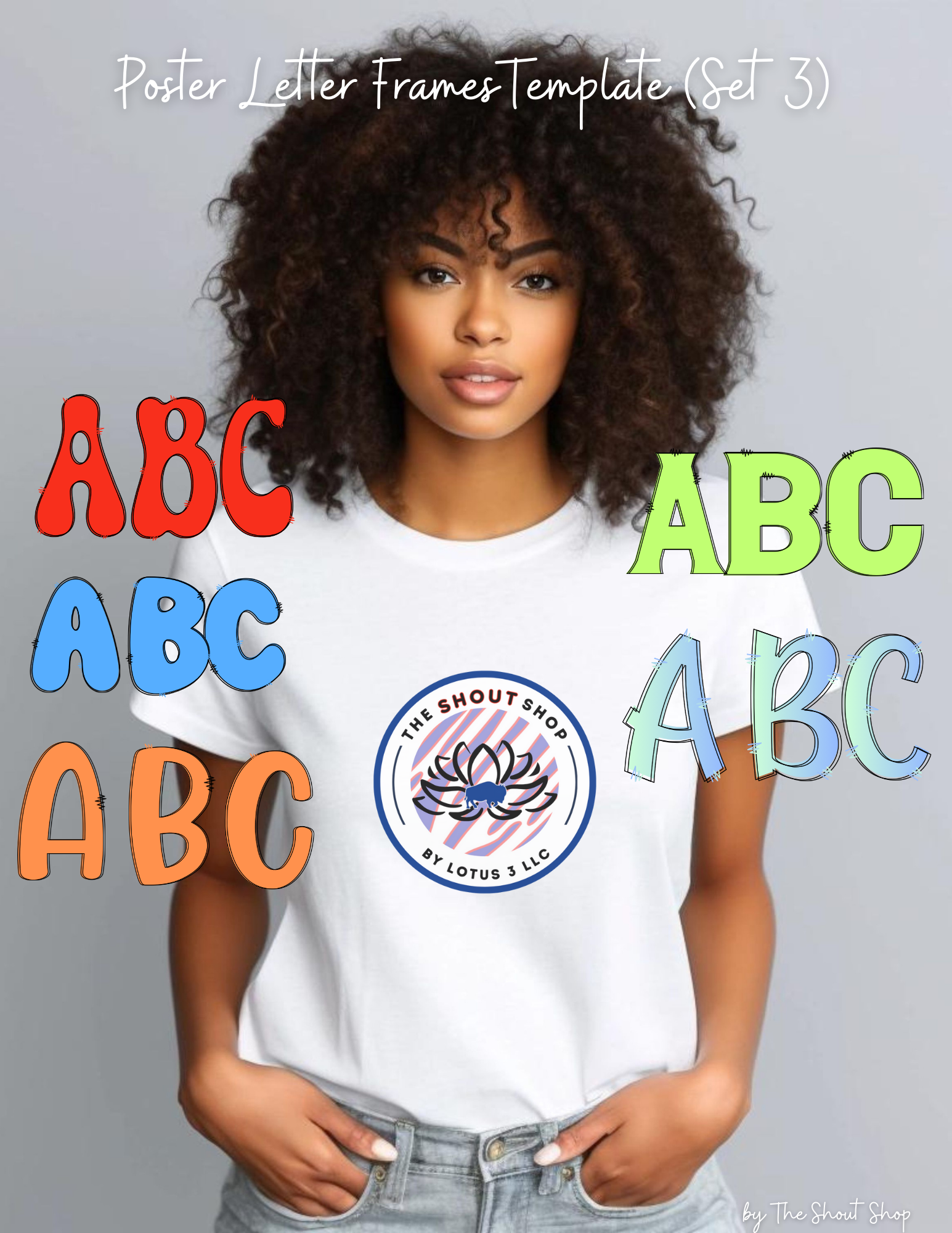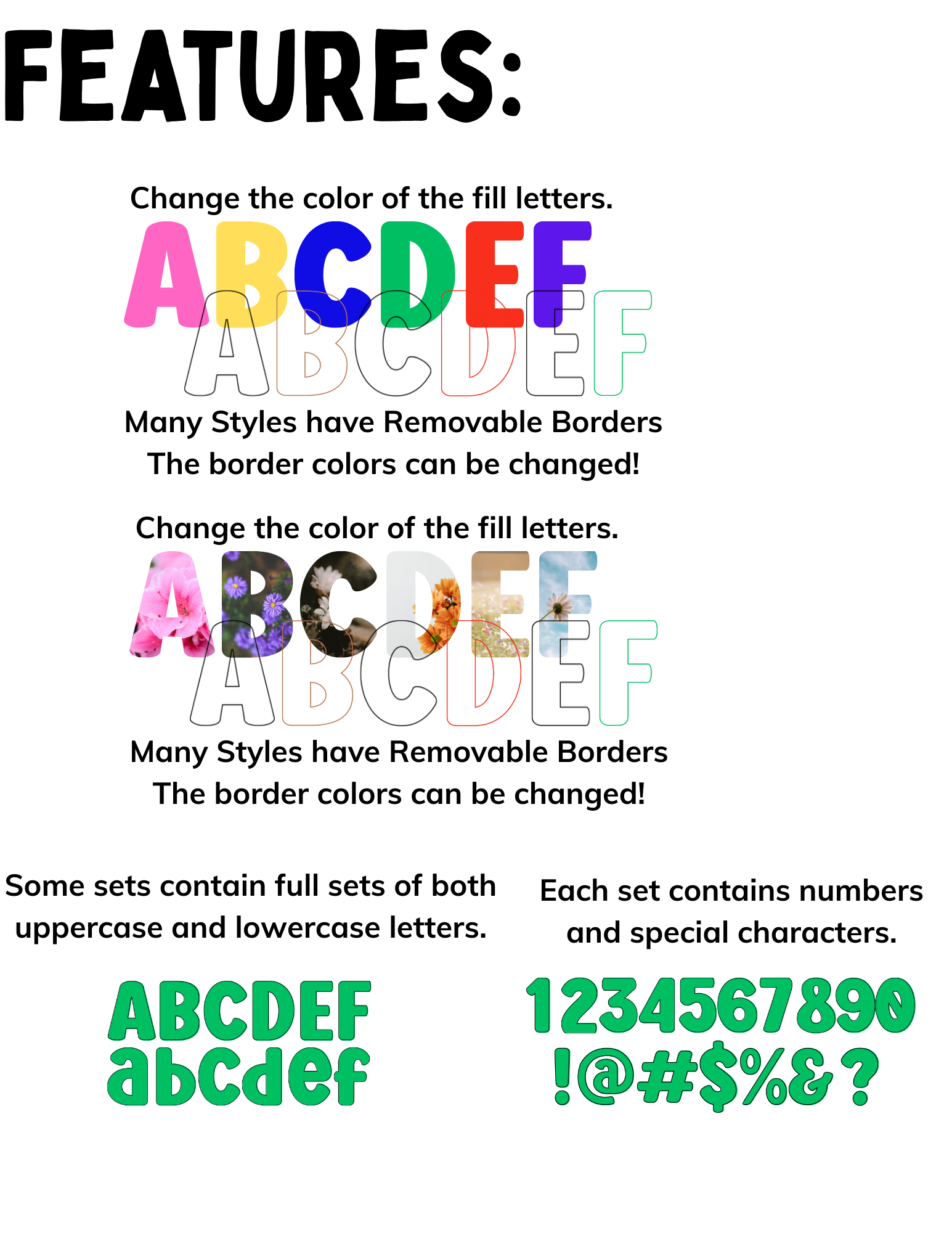
Poster Font Canva Template Collection (Set #3)
This collection includes 5 unique poster style fonts and graphics that are frames with the ability fill with any color or drop any photo into the letters. Many of the fonts have both upper and lowercase fonts. All sets include numbers and other symbols you might need.